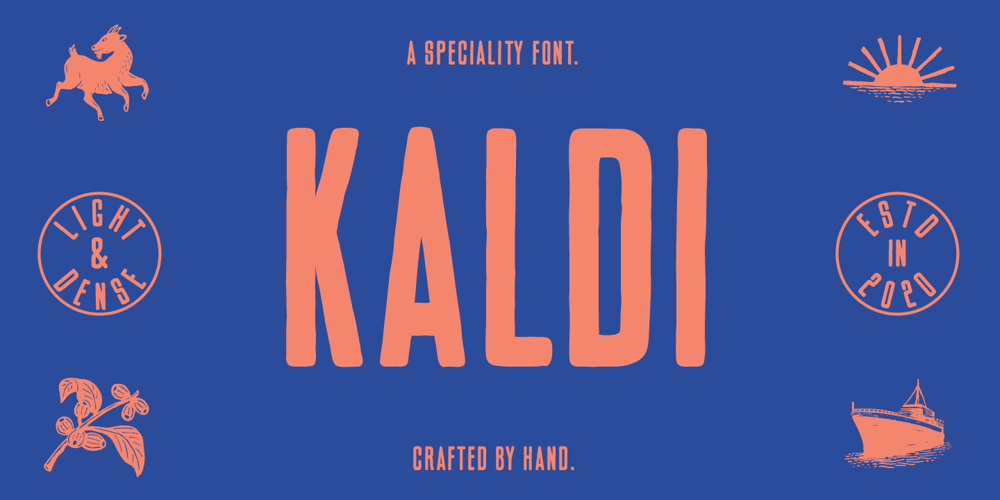
Kaldi Font Family was designed by Ed Hemphill and published by Hemphill Type. Kaldi contains 4 styles and family package options. Kaldi is a tall condensed typeface that has gone through a natural process of handcraft and refinement to produce a speciality blend. On consumption expect light and dense notes with an earthy undertone.This font family was inspired by the legend of Kaldi – the goat herder who discovered the coffee plant after his goats started dancing after eating the coffee cherries.